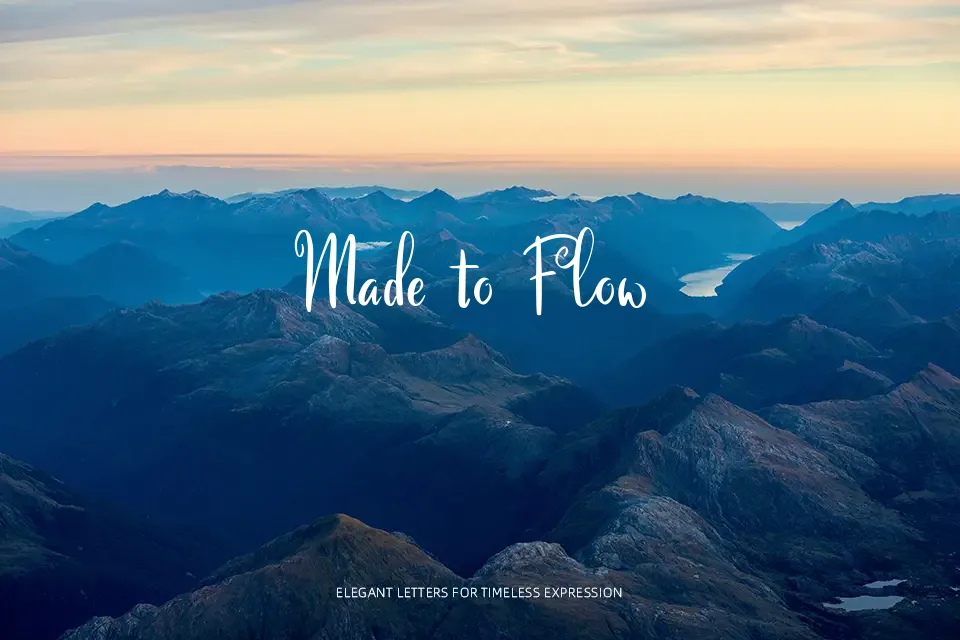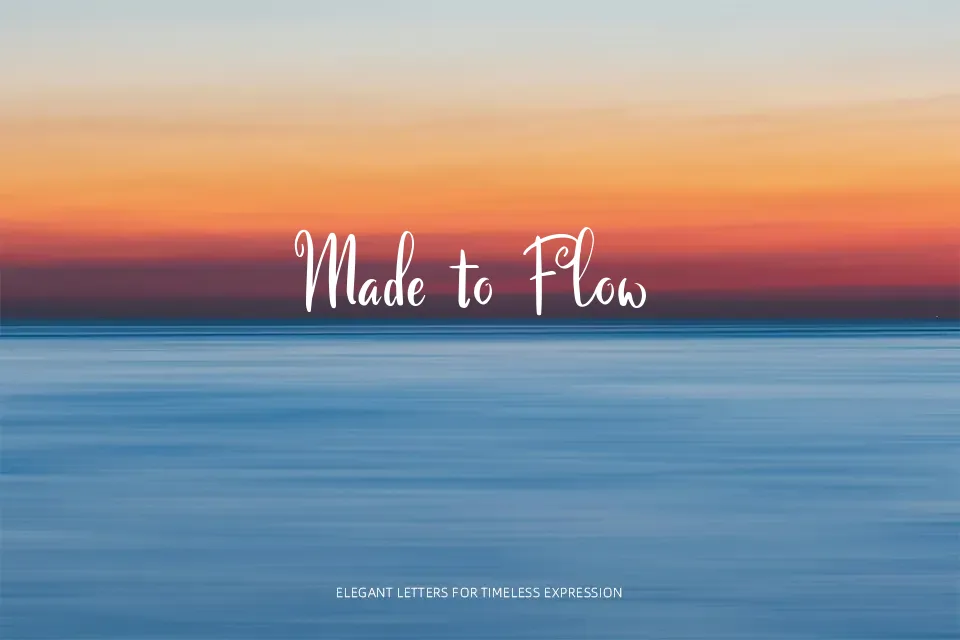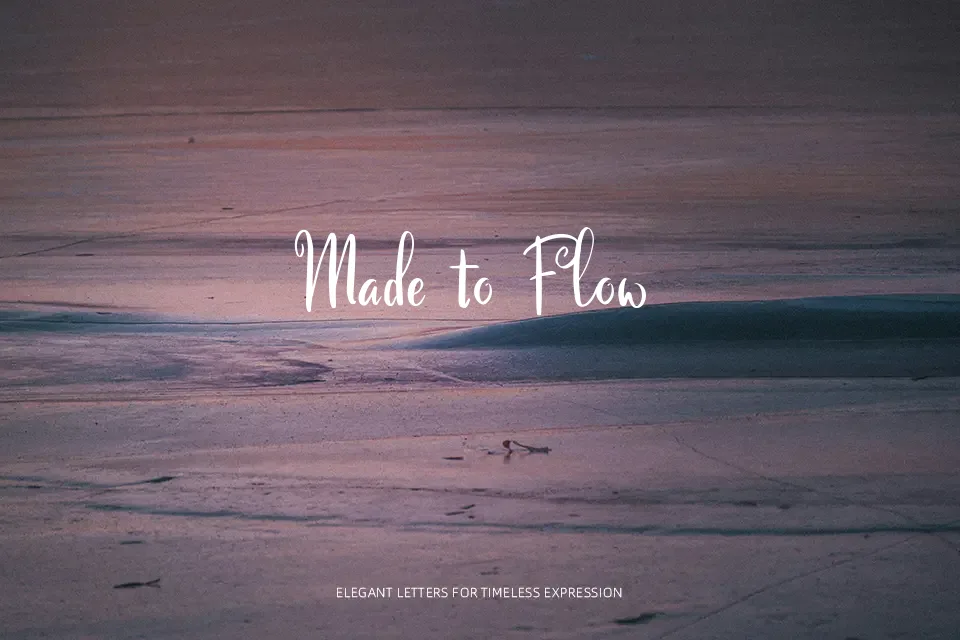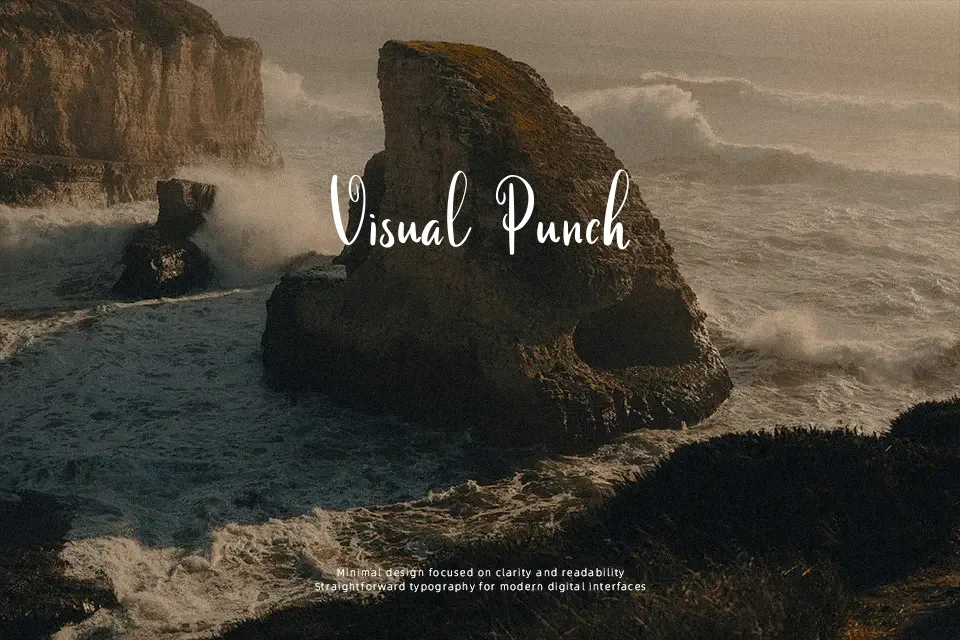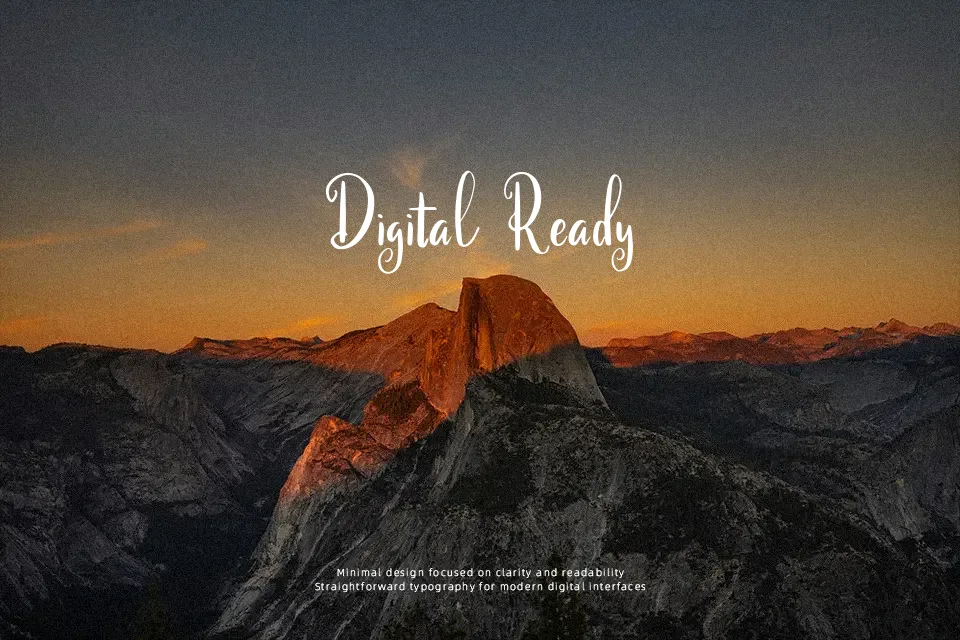
Calinastiya Font
Designed by Patria Ari Typestudio
Calinastiya is a lively script with rounded terminals, loose connections, and bouncy baselines that read like neat casual handwriting rather than strict calligraphy. The strokes are relatively even in weight, with gentle swashes and slightly condensed spacing that keeps longer words from feeling too spread out. It works especially well on wedding suites, boutique logos, packaging for beauty or craft products, and Instagram posts where a warm handwritten tone matters more than rigid alignment. On the other hand, its curls and varying rhythm make it a poor fit for dense body copy, formal corporate documents, or tiny captions where clean sans serif text is easier to scan.
Wedding invitations and stationery with names or short phrases as focal points
Branding and logos for boutiques, beauty products, or handmade goods
Social media graphics and quote images that need a playful handwritten voice
Packaging or labels where a casual script headline complements simpler supporting text
Long paragraphs or body text that must remain highly legible at small sizes
Serious corporate, finance, or technology branding that relies on a more neutral tone
UI text, app interfaces, or data-heavy layouts that demand strict clarity and consistency
All-caps settings or tightly packed text blocks where loops and swashes easily collide
Perfect for branding, invitation, and logo, with a creative and display style.